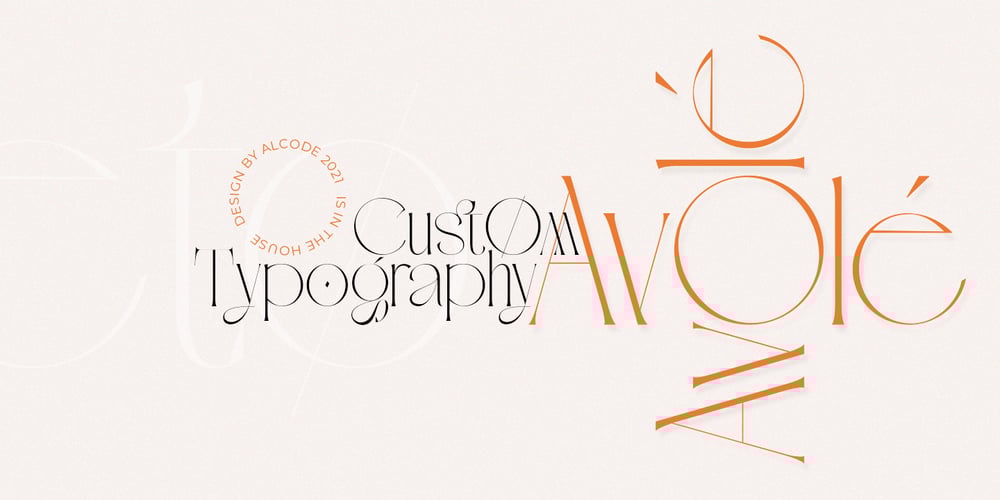
Migueto Font Family was designed by Sukjana Almunandar and published by Alcode. Migueto contains 1 styles and family package options. Migueto is a serif typeface with ligatures also complete multilingual glyphs. Migueto come with Regular style, it will make this typeface can be used in all design projects and works perfectly for pairing with script typeface or handmade fonts, Headlines, Posters, Packaging, T-shirts, Postcards, Invitation, Wedding Sign, Sign Painting, Signboard, and much more.Try Migueto, enjoy the richness of OpenType features and let her fun and elegant excitement make you happy and enhance your creativity! You can use this font very easily.• Multilingual Support And Special LigaturesIf you do not have programs that support OpenType features like Adobe Illustrator and CorelDraw X Versions, you can access all alternative flying machines using Font Book (Mac) or Character Map (Windows)